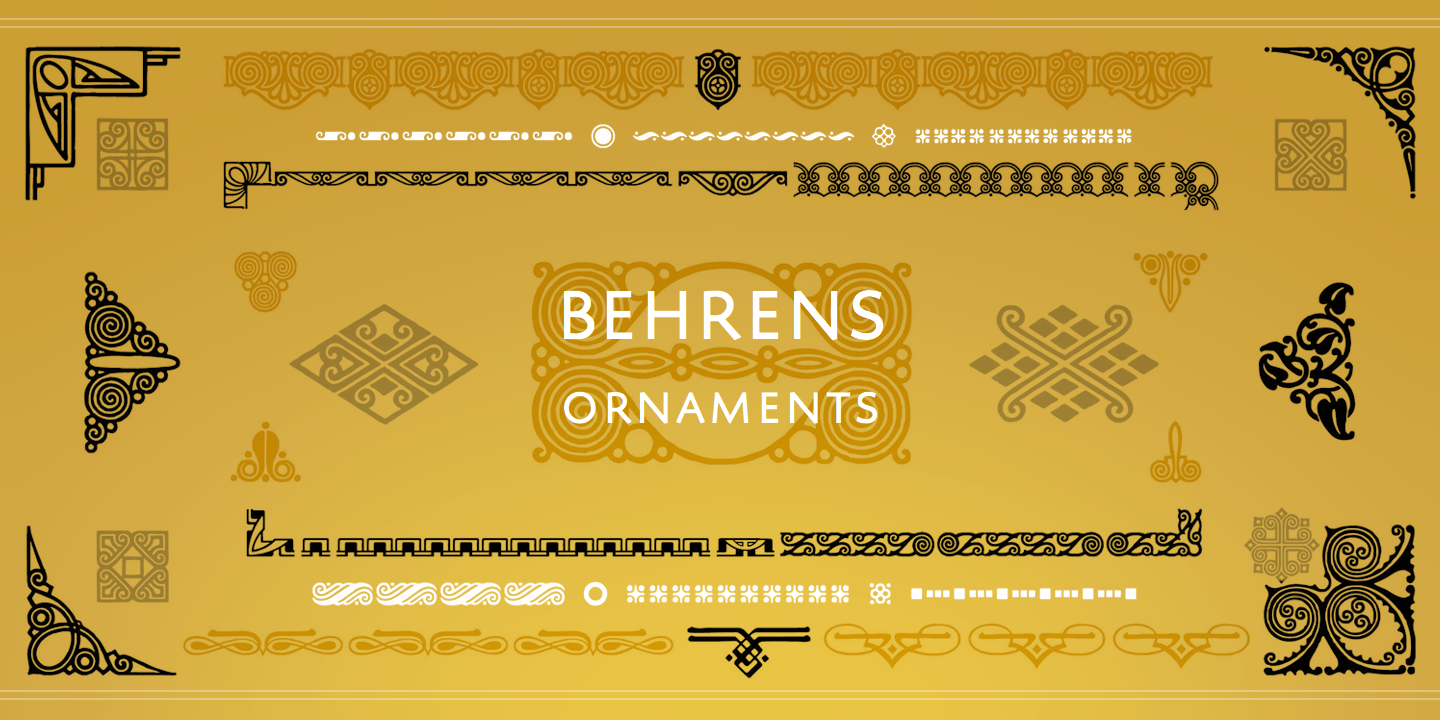
Behrens Ornaments Font is perfect for luxury vintage branding, Art Nouveau design projects, elegant wedding invitations, sophisticated museum publications, decorative arts marketing, high-end antique shop communications, ornamental ironwork branding, and classical architecture presentations. This distinguished typeface excels in applications where historical elegance, decorative sophistication, and ornamental beauty are essential for connecting with audiences who appreciate classical design principles and the timeless artistry of decorative ornamental traditions.
What makes Behrens Ornaments Font so exciting is its exquisite recreation of classical ornamental design that perfectly captures the essence of Art Nouveau sophistication and decorative arts mastery. The font features intricate, decorative elements with flowing organic patterns that evoke master craftsman Peter Behrens' influential design legacy. Its ornamental character conveys refinement, historical significance, and artistic mastery - essential qualities for brands serving discerning clientele who appreciate classical design excellence, decorative arts heritage, and the sophisticated beauty of ornamental craftsmanship.
The Behrens Ornaments Font family includes comprehensive ornamental sets and decorative variations that provide designers with extensive tools for creating elaborate classical compositions. Multiple ornamental weights feature intricate flourishes, botanical motifs, and geometric patterns that allow for sophisticated layering and complex decorative arrangements suitable for premium branding and luxury applications.
Whether you're creating materials for luxury heritage brands, designing elegant decorative projects, or developing marketing campaigns for classical arts organizations, Behrens Ornaments Font Free Download provides the ornamental sophistication your project demands. The font's decorative character makes it particularly effective for brands targeting cultured audiences who appreciate historical design excellence, ornamental artistry, and the refined beauty of classical decorative traditions.
Embrace ornamental mastery with Behrens Ornaments Font and elevate your sophisticated communications with typography that celebrates the timeless elegance of classical decorative arts and ornamental design excellence.